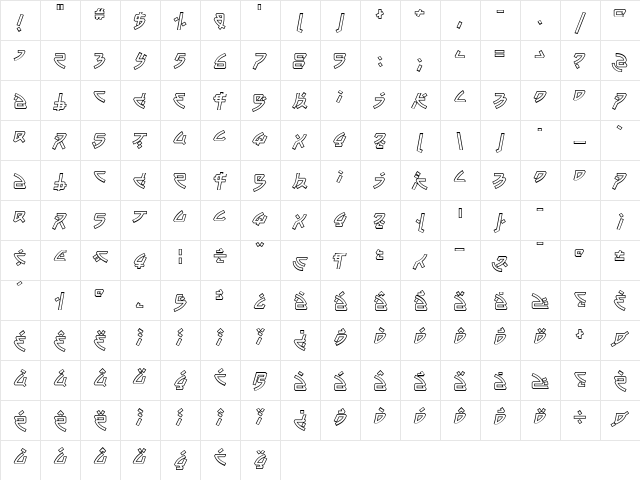
TsunamiOutline Regular
Design Context for TsunamiOutline Typeface
TsunamiOutline is built around its visual character rather than neutral utility — its distinctive forms are designed to make an impression at display sizes.
Font Pairing: Pair with a clean neutral sans-serif for body copy to let TsunamiOutline's character lead without overwhelming the composition.
Pro Tip: Treat TsunamiOutline as the centrepiece of your typographic hierarchy. One strong heading set in a decorative face can carry an entire layout.